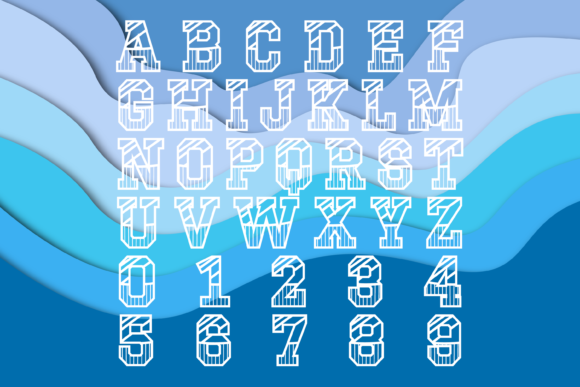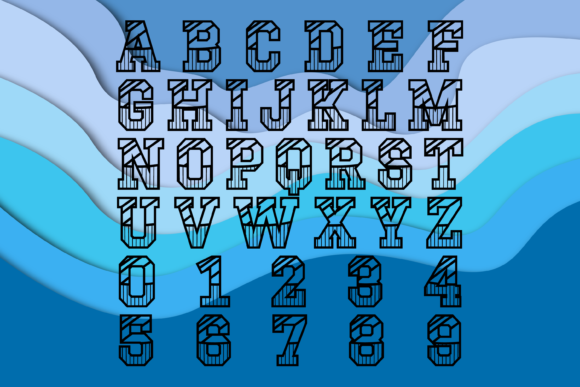
Introduction to Ice Puck Font
Ice Puck is an incredibly cool decorative font.
Whether you use it for custom designs, DIY crafts, or just any creation that requires a lovely touch, this font will be an amazing choice .
Key Features of Ice Puck Font
Why Choose Ice Puck Font?
Ice Puck Font offers exceptional quality and versatility, making it a valuable addition to your design toolkit. Whether you’re creating for personal projects or commercial use, Ice Puck Font delivers professional results.